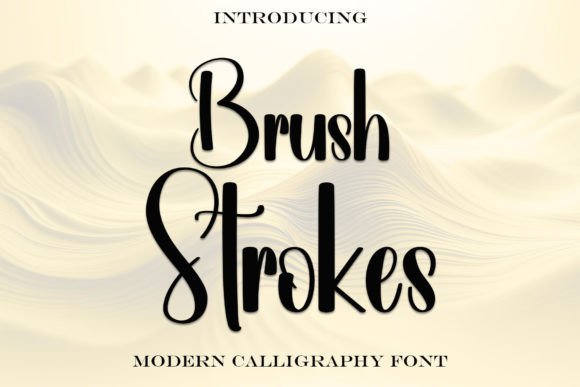
The Art of Typography: Unveiling the Brush Strokes Font
Remember that moment when you finally found the perfect font to elevate your design project? The thrill of seeing your words come alive with style and sophistication? For designers, that ‘aha’ moment is a regular occurrence, but it’s always exciting. It’s the culmination of hours spent searching for the perfect combination of form and function. And for many, that moment is made possible by the Brush Strokes Font.
This trendy handwritten font is designed to bring a touch of elegance and class to any project. With its contemporary atmosphere and impeccable form, it’s inspired by timeless classic calligraphy. The Brush Strokes Font is a valuable addition to any designer’s toolkit, offering a unique blend of sophistication and playfulness that’s sure to captivate audiences. Whether you’re working on a branding project or creating a stunning visual identity, this font is sure to make your designs stand out.
Key Features of Brush Strokes Font
- Unique Characteristics: Features a distinctive brush stroke effect, giving it a hand-painted, artistic feel that adds a touch of personality to text.
- Font Style: Available in both regular and bold weights, allowing for a range of tonal expressions and emphasis.
Designer Review: Brush Strokes Font
Overall, I think the Brush Strokes Font is a lovely addition to any designer’s toolkit. It’s perfect for projects where a more hand-drawn or artistic feel is desired. ✨
- Unique and creative flair: The Brush Strokes Font is not your run-of-the-mill font. Its irregularities and imperfections give it a unique character that can add visual interest to designs.
- Expressive and emotive: The font’s expressive quality makes it perfect for projects where you want to convey emotion or create a sense of atmosphere.
- Customizable: Depending on the software you’re using, you can customize the font to fit your specific design needs.
However, there are some limitations to keep in mind:
- Lack of legibility: The font’s irregularities can sometimes make it difficult to read, especially in smaller sizes or at a distance.
- Not suitable for body text: While the Brush Strokes Font is great for headlines or emphasis, it’s not ideal for large blocks of body text.
Overall, I think the Brush Strokes Font is a great choice for designers looking to add a unique touch to their projects. Just be mindful of its limitations and use it thoughtfully.
Brush Strokes Font: A Practical Application Guide
For a more authentic look, experiment with layer blending modes and adjust the text opacity to achieve a soft, watercolor effect.
For a more polished look, use the font effects feature in PowerPoint to add a subtle texture or gradient to your text.
Brush Strokes Font is ideal for creative projects such as invitations, posters, and greeting cards. It’s also suitable for digital art and illustrations.
Experiment with different font sizes, colors, and styles to achieve a unique and eye-catching effect.
Alternatives to Brush Strokes Font
Lobster Font is a modern, cursive script font suitable for titles, headings, and short paragraphs. It’s ideal for creating a playful and elegant look. Lobster Font is more refined and sophisticated compared to Brush Strokes Font, making it suitable for high-end branding and marketing materials.
Pacifico Font is a beautiful, elegant script font inspired by the ocean. It’s perfect for creating a relaxed and calming atmosphere, ideal for use in magazines, advertisements, and websites. Pacifico Font is more minimalist and clean compared to Brush Strokes Font, making it suitable for modern and sophisticated designs.